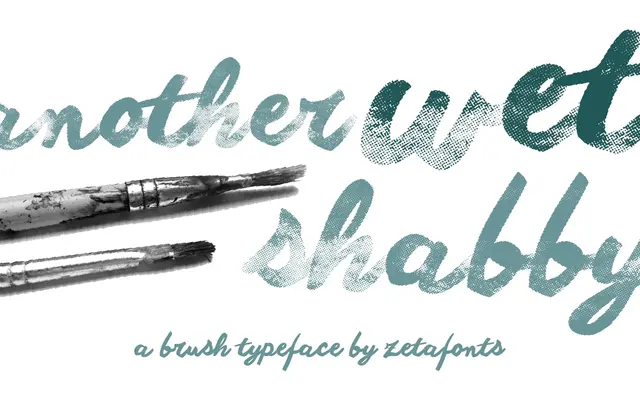
Another Shabby
Zetafonts · Francesco Canovaro · 2014
A rough brush script family by Francesco Canovaro with a watercolour-textured variant covering Latin, Greek and Cyrillic across 205 languages.
Built from wide, slightly rounded brushstrokes that simulate casual handwriting, the family runs across four weights from Light to Heavy. Another Wet Shabby extends the family with per-character watercolour texturing for multilayered colour compositions without post-production. Coverage spans 575 glyphs across 205 languages in Latin, Greek and Cyrillic scripts, though the textured variant is processor-intensive and unsuitable for long text blocks.
A handwritten casual script defined by rough, wide brushstrokes with slightly rounded corners, placing it firmly in the casual brush script subcategory. The textured wet and raw variants add watercolour and chalk effects layered over the base script forms.